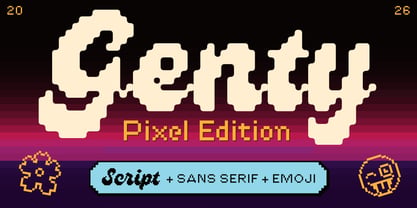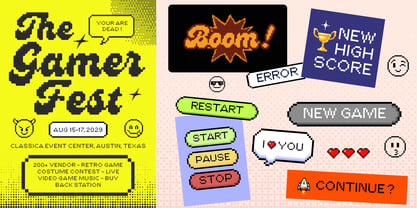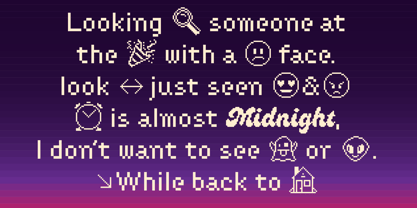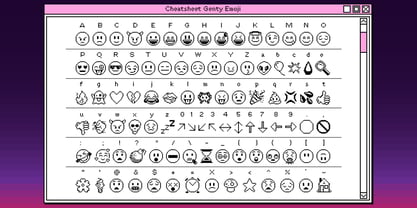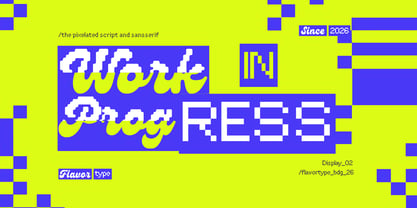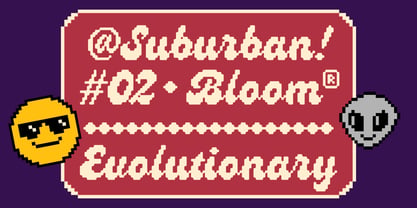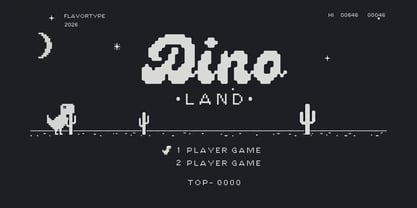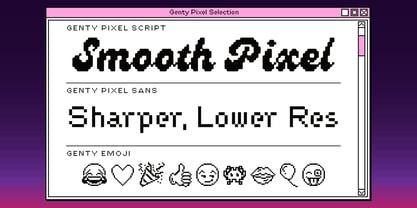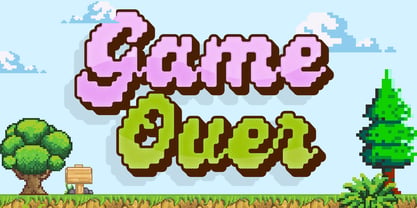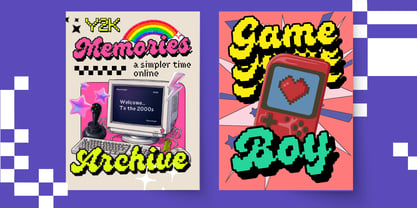
Genty Pixel
Die Schriftfamilie Genty Pixel wurde von Ilham Herry, Adam Fathoni Haris, panji nugroho, Rizky Setyaludin entworfen und von Flavortype veröffentlicht. Genty Pixel enthält 3 Stile und Familienpaketoptionen. Mehr über diese Familie
Meet Genty Pixel Edition, a fresh evolution of one of FlavorType’s most beloved typefaces. Originally launched in 2020, Genty quickly became a favorite among designers and has remained FlavorType’s best-selling font family for the past six years. Now, Genty returns with a nostalgic pixel-inspired makeover while keeping the playful personality and charm that made the original so popular.
This new edition expands the Genty universe with three complementary styles: Genty Script Pixel, Genty Sans Pixel, and the all-new Genty Emoji set. The script version captures the friendly, bold curves of the original Genty in a handcrafted pixel form, while the sans serif companion provides a clean and versatile pixel style for supporting text, layouts, and user interface designs.
To make your designs even more expressive, Genty Pixel Edition includes a collection of fun pixel emojis and symbols that can be accessed directly through your keyboard characters. Simply type the corresponding letters and keys to unlock decorative icons, emotive faces, gaming-inspired graphics, and playful pixel elements that instantly bring personality to your work.
Inspired by retro games, early computer interfaces, pixel art, and internet culture, Genty Pixel Edition is perfect for:
• Branding and logo design
• Gaming projects and streaming graphics
• Posters and event promotions
• Packaging and merchandise
• Social media content
• Pixel art and retro-inspired designs
• Web graphics and UI concepts
• Creative editorial layouts
Whether you’re creating a nostalgic gaming aesthetic or simply looking for a typeface packed with character, Genty Pixel Edition delivers a complete pixel toolkit with the warmth, energy, and friendliness that have defined Genty from the beginning.